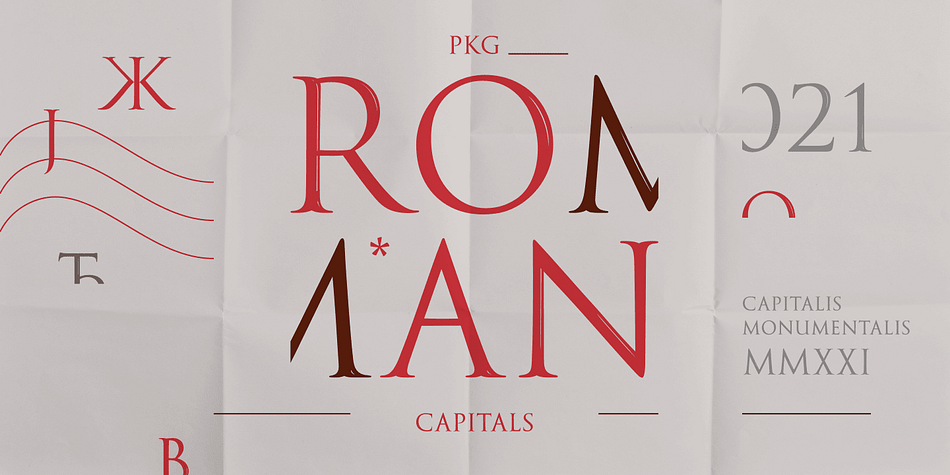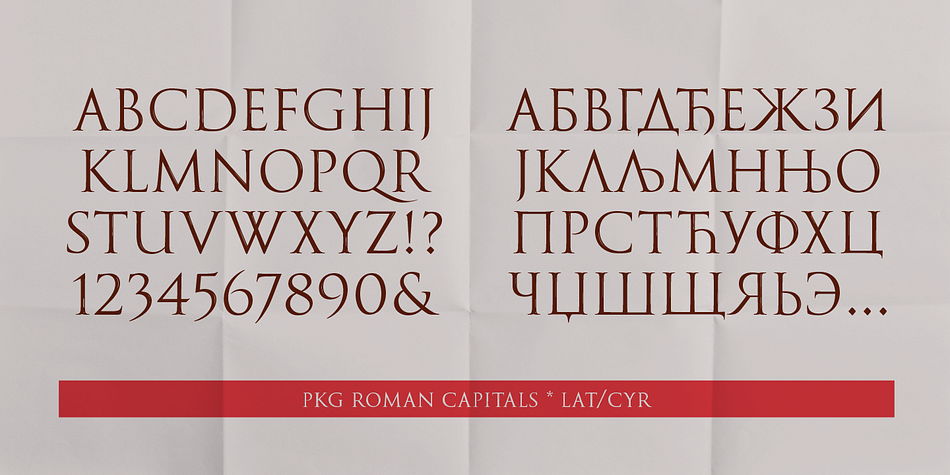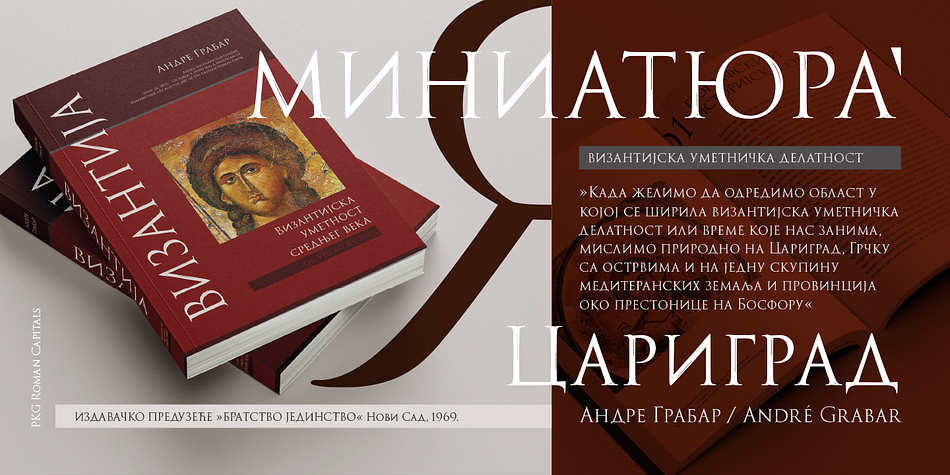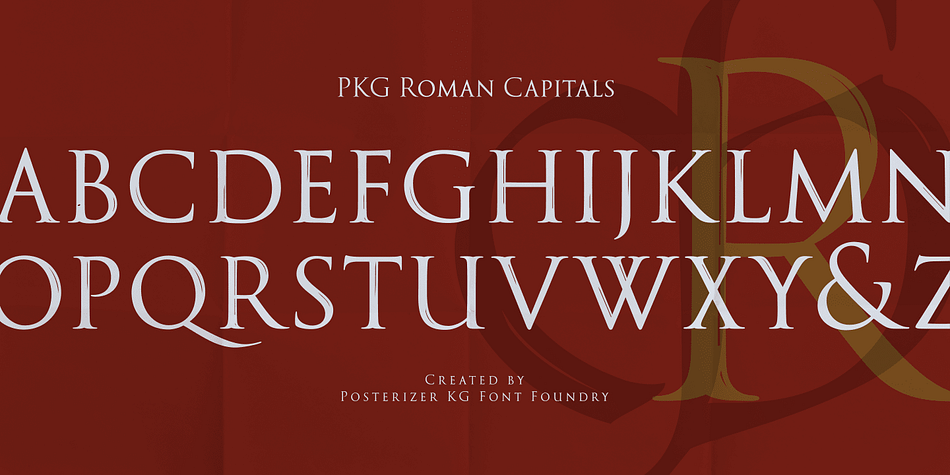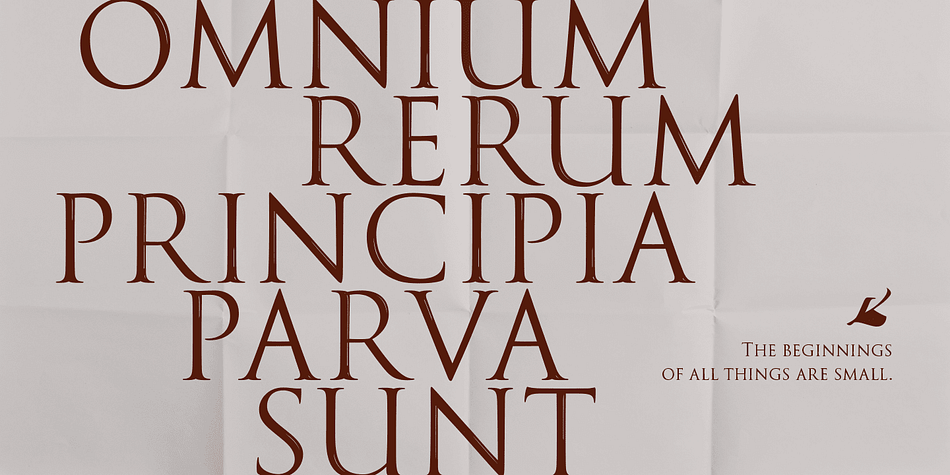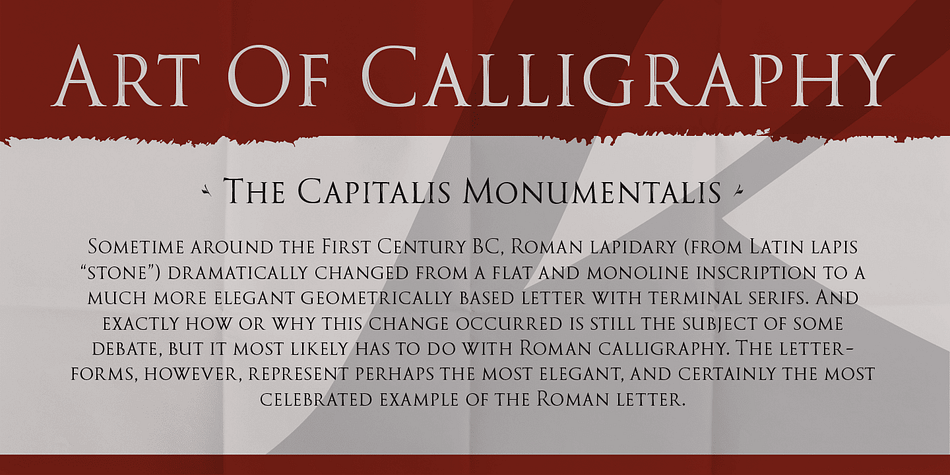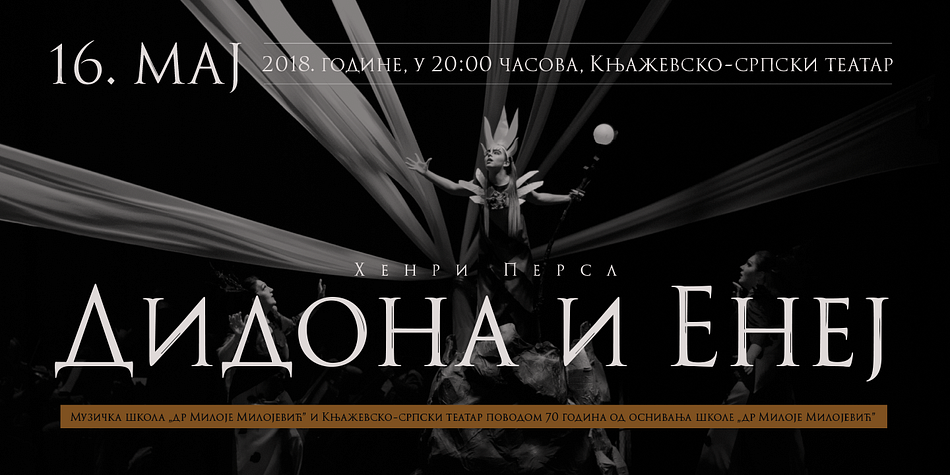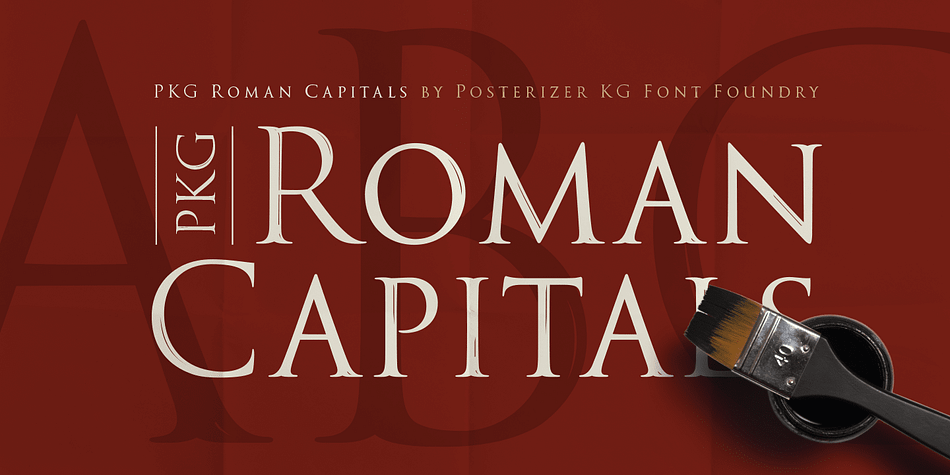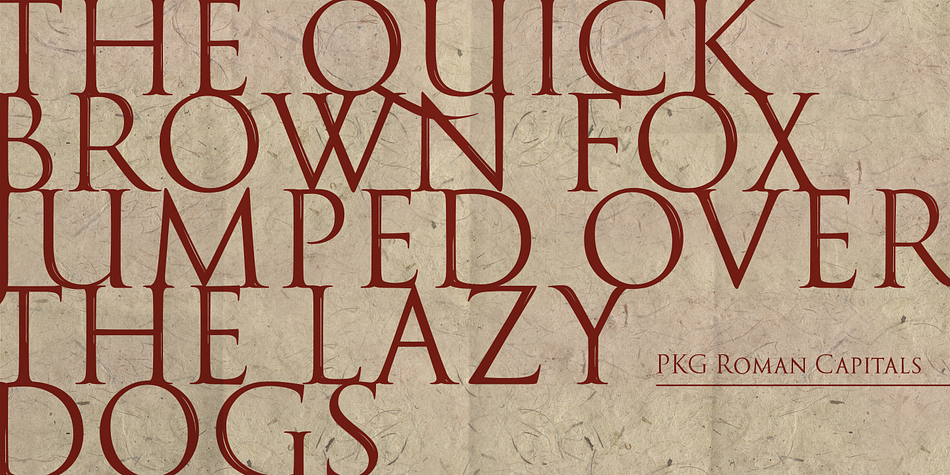
PKG Roman Capitals
Designed by Lazar Dimitrijević, PKG Roman Capitals is a display serif font published by Posterizer KG.
PKG Roman Capitals is one more of Posterizer KG calligraphic fonts, based on Roman Square Capitals letterforms, also called Capitalis Monumentalis, Inscriptional Capitals, Elegant Capitals and Capitalis Quadrata from (about) 2nd century A.D. All graphemes are taken from calligraphic pages written with brush on traditional calligraphic stile, inspired by epigraphic monuments from the Roman Pantheon, Trajan’s Column, and the Arch of Titus. PKG Roman Capitals font is good guides for any who want to study the beautiful proportions of Roman Capitals. In practice, it can be useful for calligraphic sketches and imitation of Roman (European) historical manuscripts. Font contains good stylistic, morphological and metrical balanced Capitals, Small Caps and all the Latin and Cyrillic glyphs.